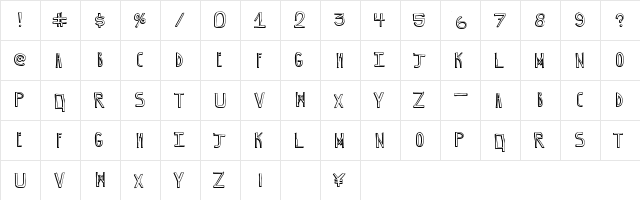
GrapeBlaster Regular
| Foundry | Xerographer Fonts |
| Designer | Max Infeld |
Design Context for GrapeBlaster Typeface
GrapeBlaster is a composed and adaptable typeface that performs quietly and consistently across a wide range of design contexts.